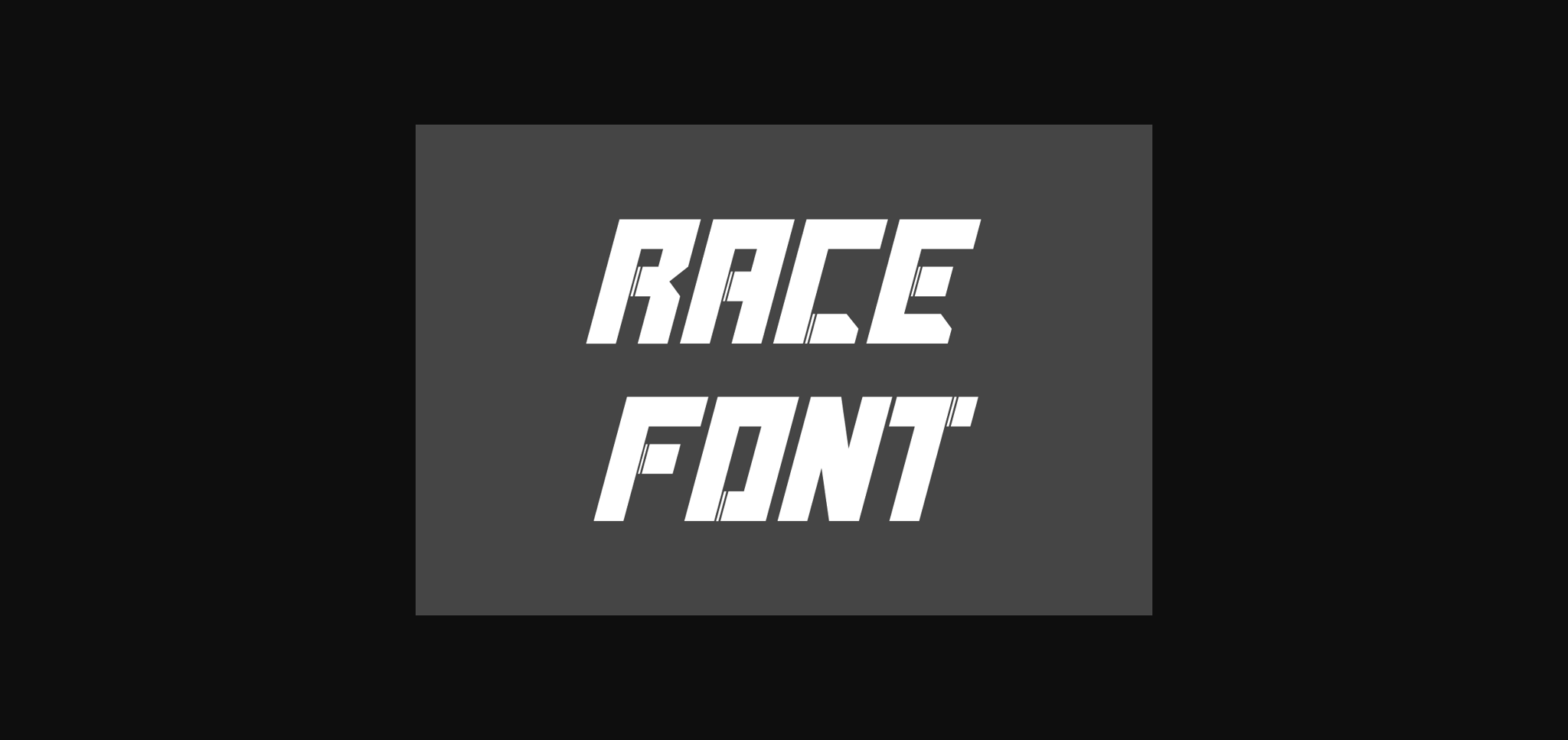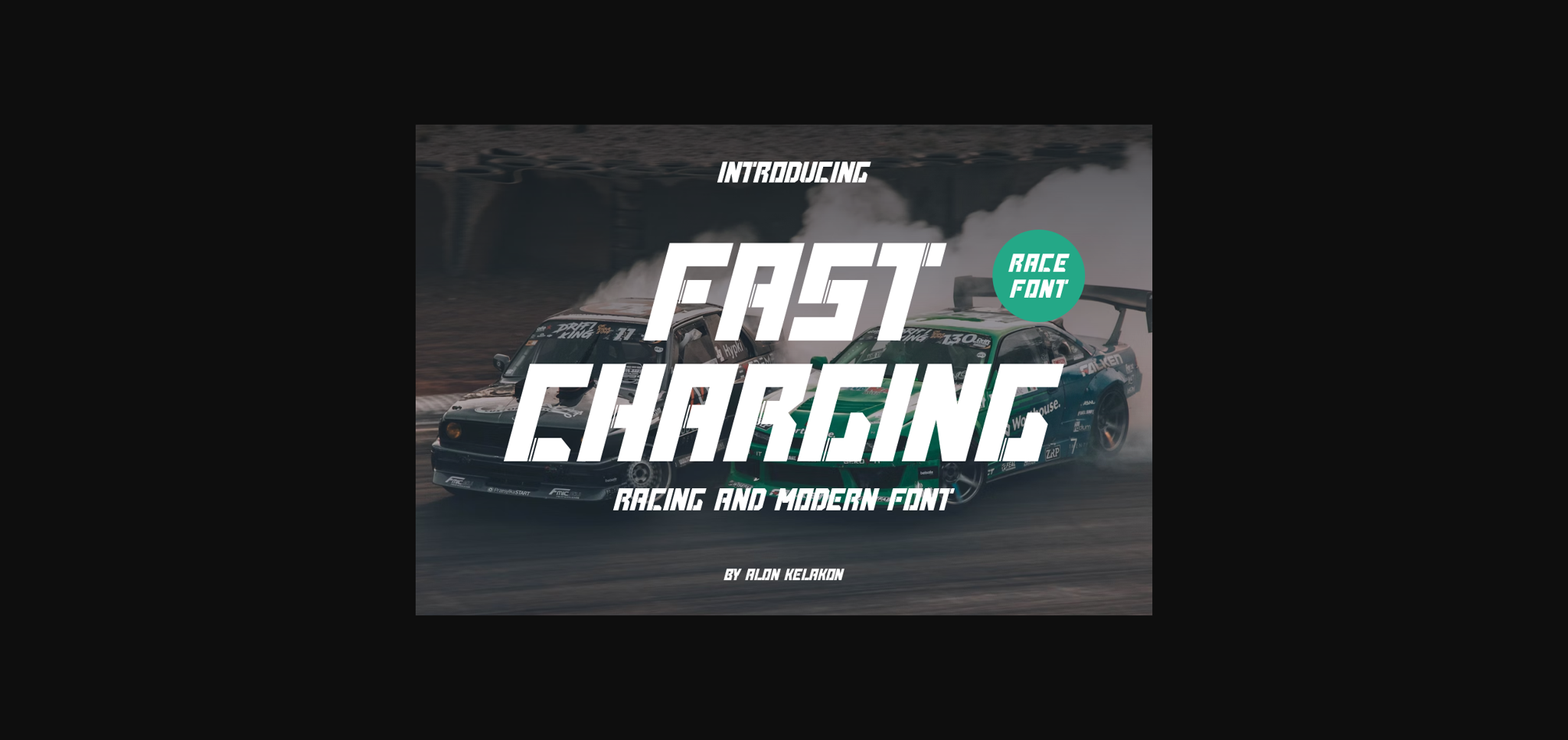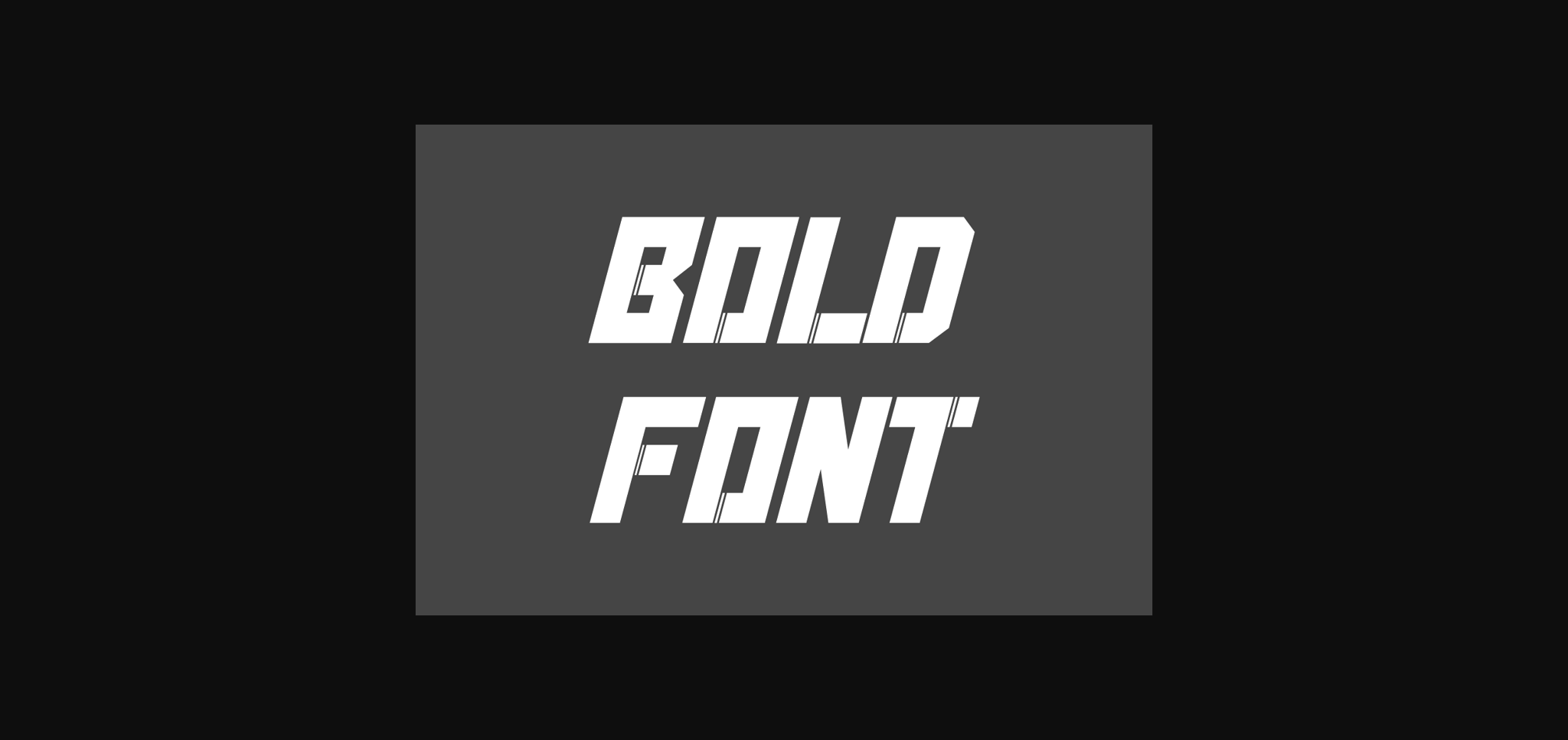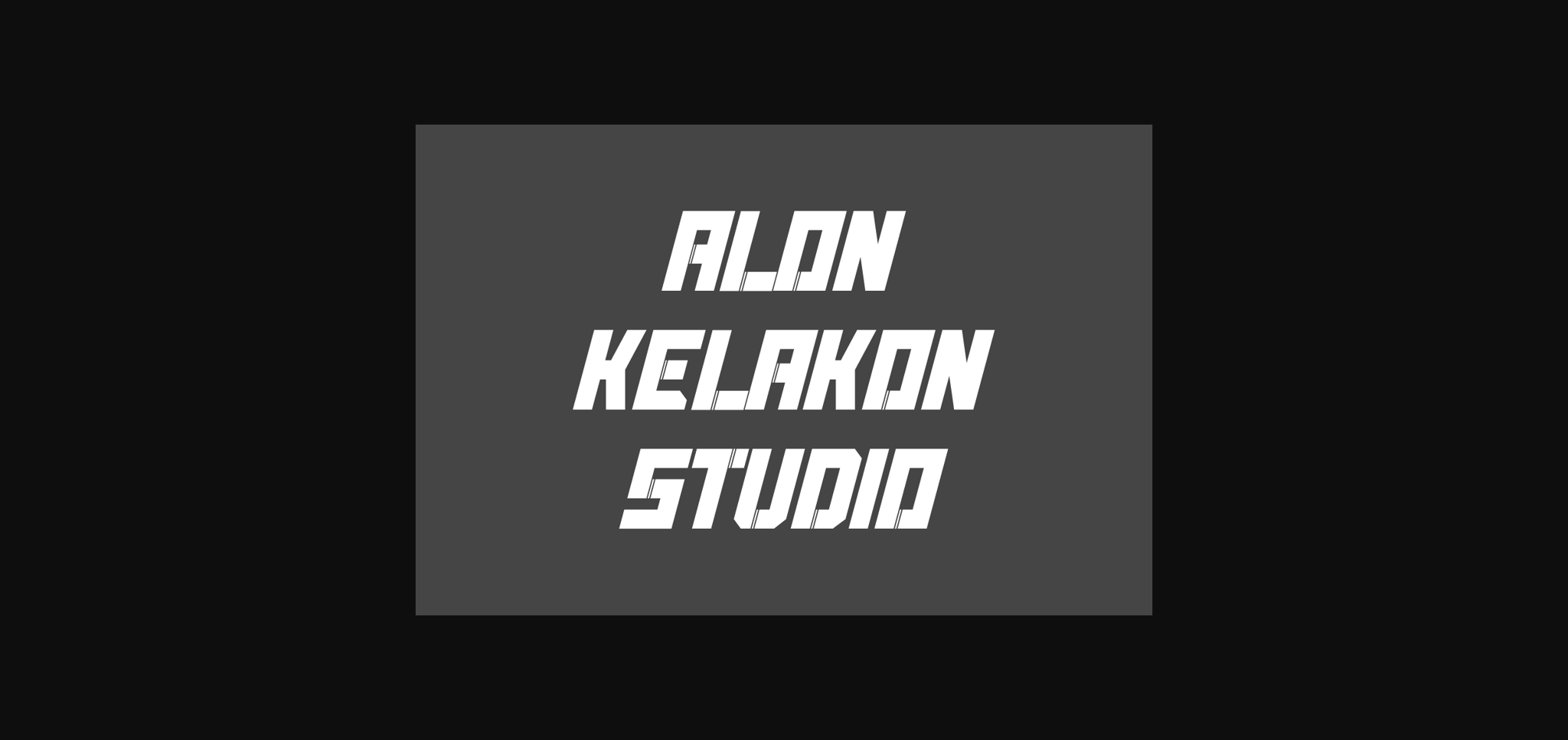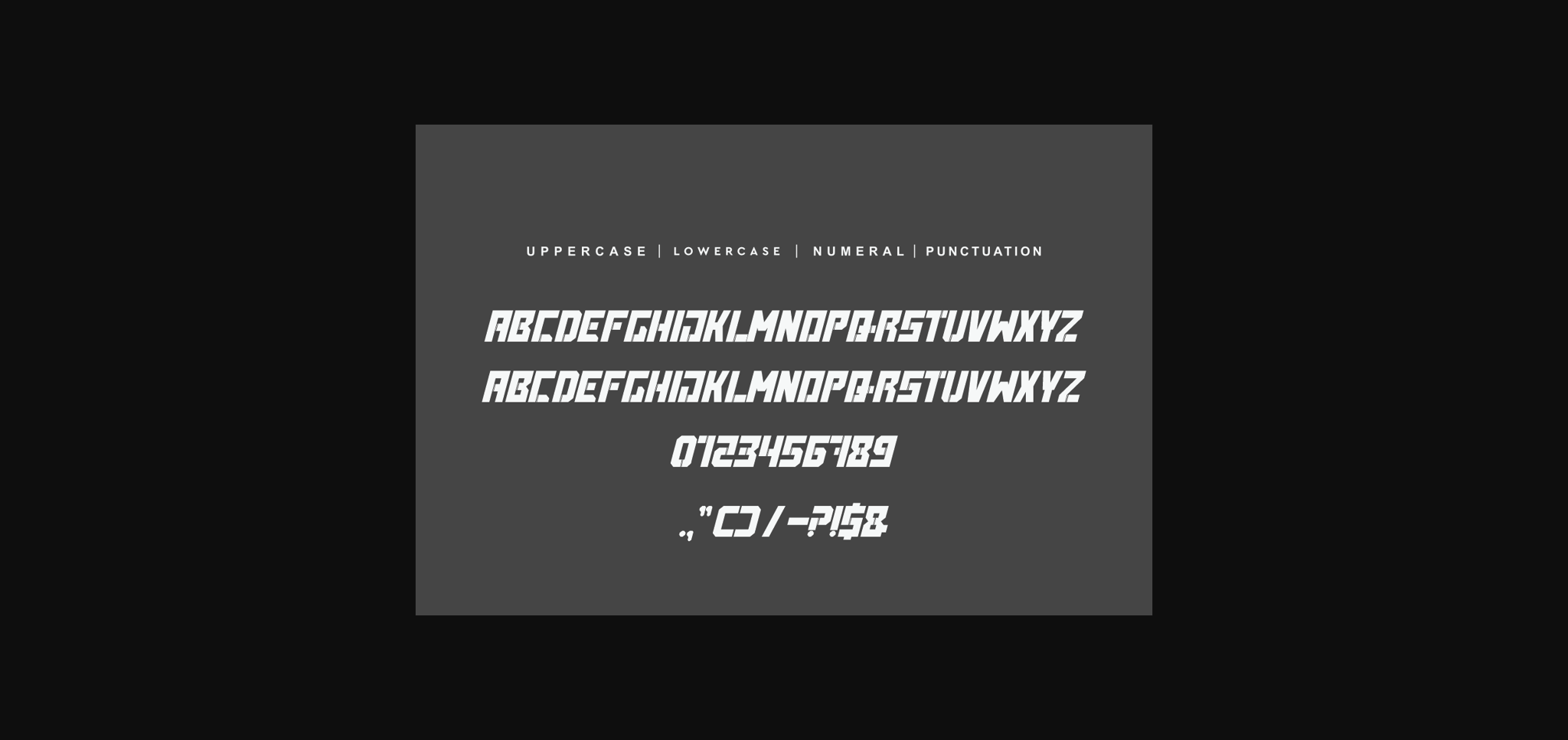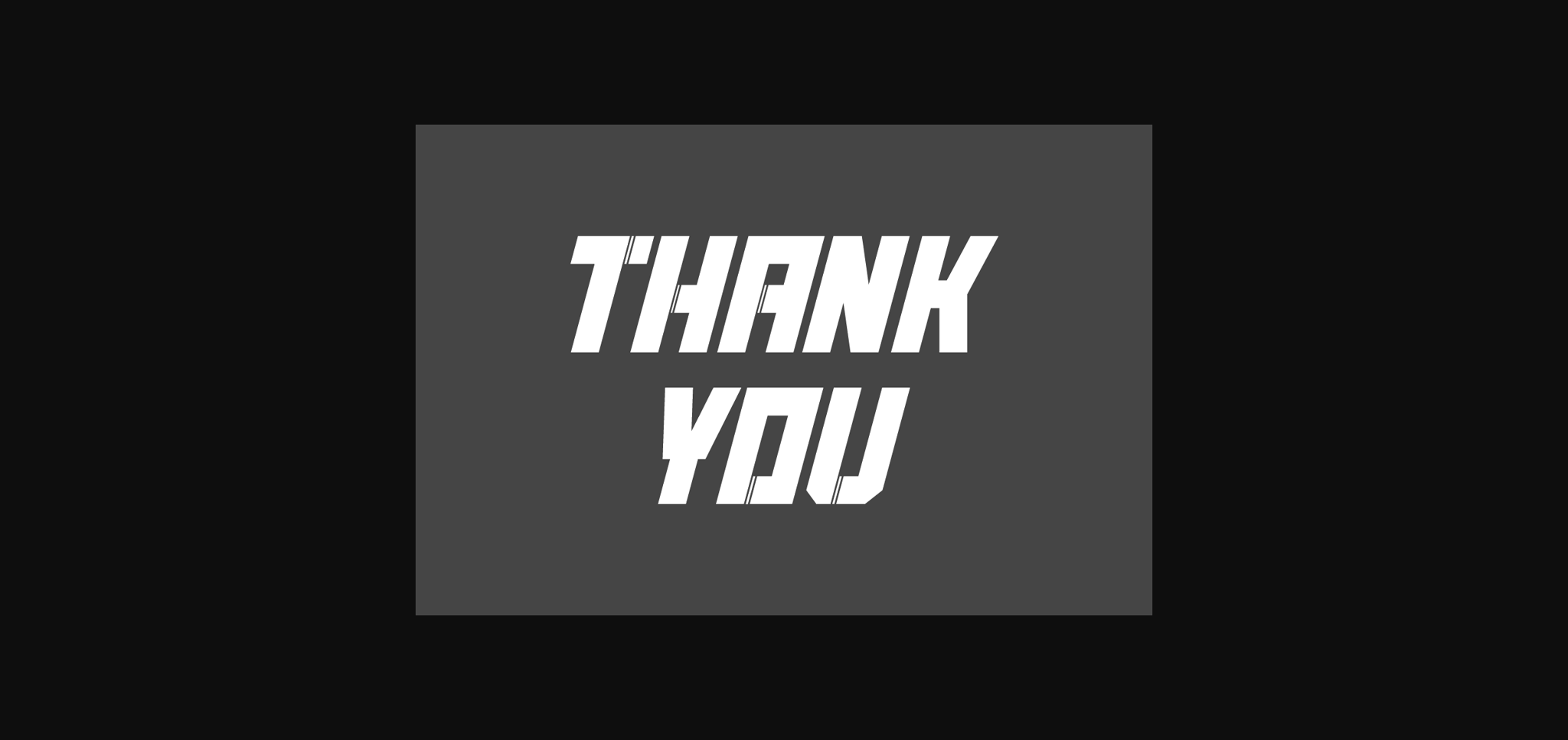
HomeSans Serif FontsFast Charging Font Sans Serif Fonts Fast Charging Font FacebookXPinterestWhatsApp 1 of 8 ... Fast Charging Font Poster 2... Fast Charging Font Poster 3... Fast Charging Font Poster 4... Fast Charging Font Poster 5... Fast Charging Font Poster 6... Fast Charging Font Poster 7... Fast Charging Font Poster 8... About Fast Charging Font Fast Charging is a bold and modern sans serif font featuring the perfect amount of trendiness. Whether you’re using it for crafting, digital designing, presentations or greeting cards making, it’s perfect! DOWNLOAD NOW People also explored Mens Bella Canvas Evergreen Mockup Shirt Brailey Font Makeup Font Magic Wand Font Rafley Notes Font Sliced Tomato Font Miss You Font Belliones Font Play Horse Shoe Font 302 0 TagsFast Charging Font Previous articleGumilang FontNext articleSonex Groper Font LEAVE A REPLY Cancel reply Comment: Please enter your comment! Name:* Please enter your name here Email:* You have entered an incorrect email address! Please enter your email address here Website: Save my name, email, and website in this browser for the next time I comment. Personal Use Free Cuttering Personal Use Free Read more about this font Histeria Bites Personal Use Free Read more about this font Aseline Personal Use Free Read more about this font Manhattan Personal Use Free Read more about this font BLOG Using Fonts in Digital Marketing: Tips to Strengthen Your Brand Identity In the realm of digital marketing, every visual element plays a crucial role in shaping a brand's identity, and fonts are no exception. The... Transform Your Website: Elevate Your Typography with 7 Best Web Font Generators Free Fonts Risk: Why Free Fonts Can Be Dangerous for Designers How to Cut Any Font on Cricut: Convert a Font to SVG (Free)